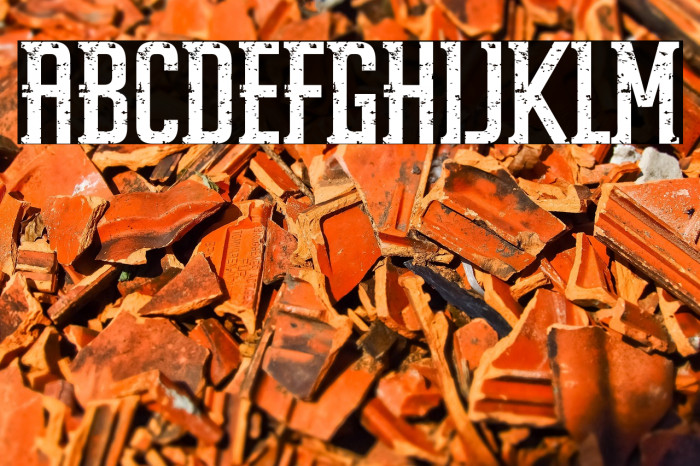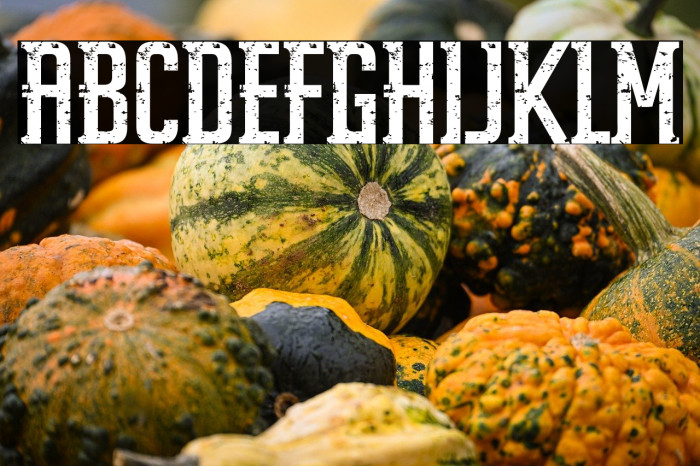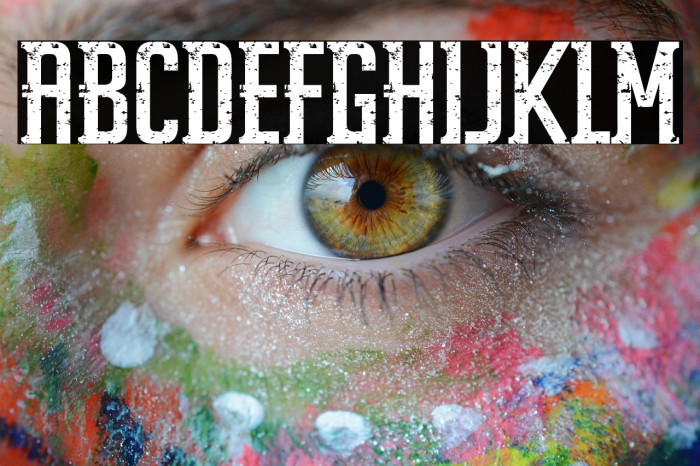
Darlothes Grunge Font
Darlothes Grunge Description
This font features a bold, distressed style with a grunge texture that gives it a rugged and worn appearance. The characters are blocky and robust, with a consistent height and width, making them highly legible despite the textured effect. The uppercase letters are particularly striking, with sharp edges and a bold presence. The numbers and special characters maintain the same distressed look, adding to the overall cohesive design. This font is ideal for projects that require a strong, impactful visual statement, such as posters, album covers, or branding for edgy or alternative products.
| Overall Style | Grunge, Decorative |
| Proposed Projects | Ideal for posters, album covers, branding for edgy products, and any design needing a rugged aesthetic. |